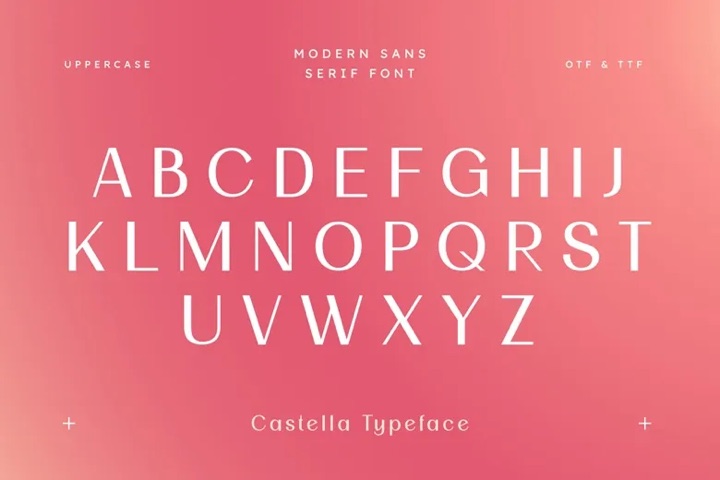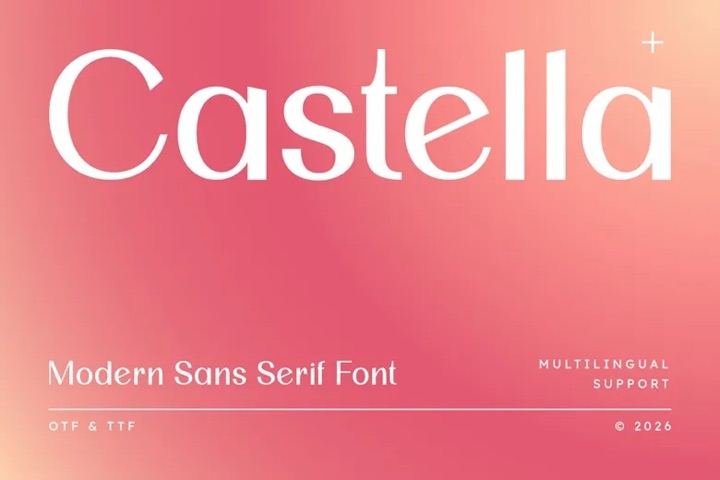
Castella Font is a refined modern sans-serif typeface designed with balanced letterforms, clean lines, and a polished minimalist character. Created by Hyperactype, it brings an elegant, professional tone to contemporary visual design.
Its sleek shapes work especially well for luxury branding, logos, cosmetic and fashion packaging, editorial layouts, websites, corporate presentations, and other projects that need an upscale modern appearance.
Castella Font preview
Castella Font lettering preview
Castella Font preview